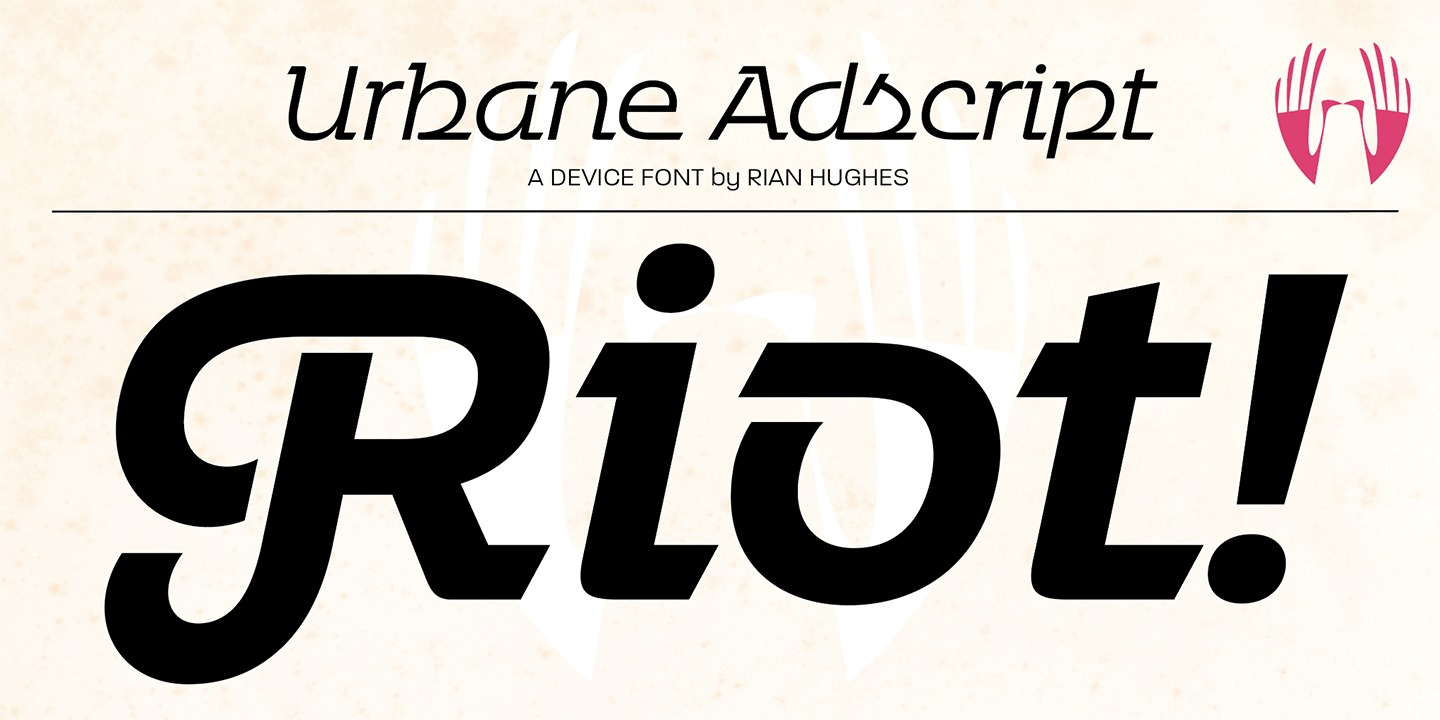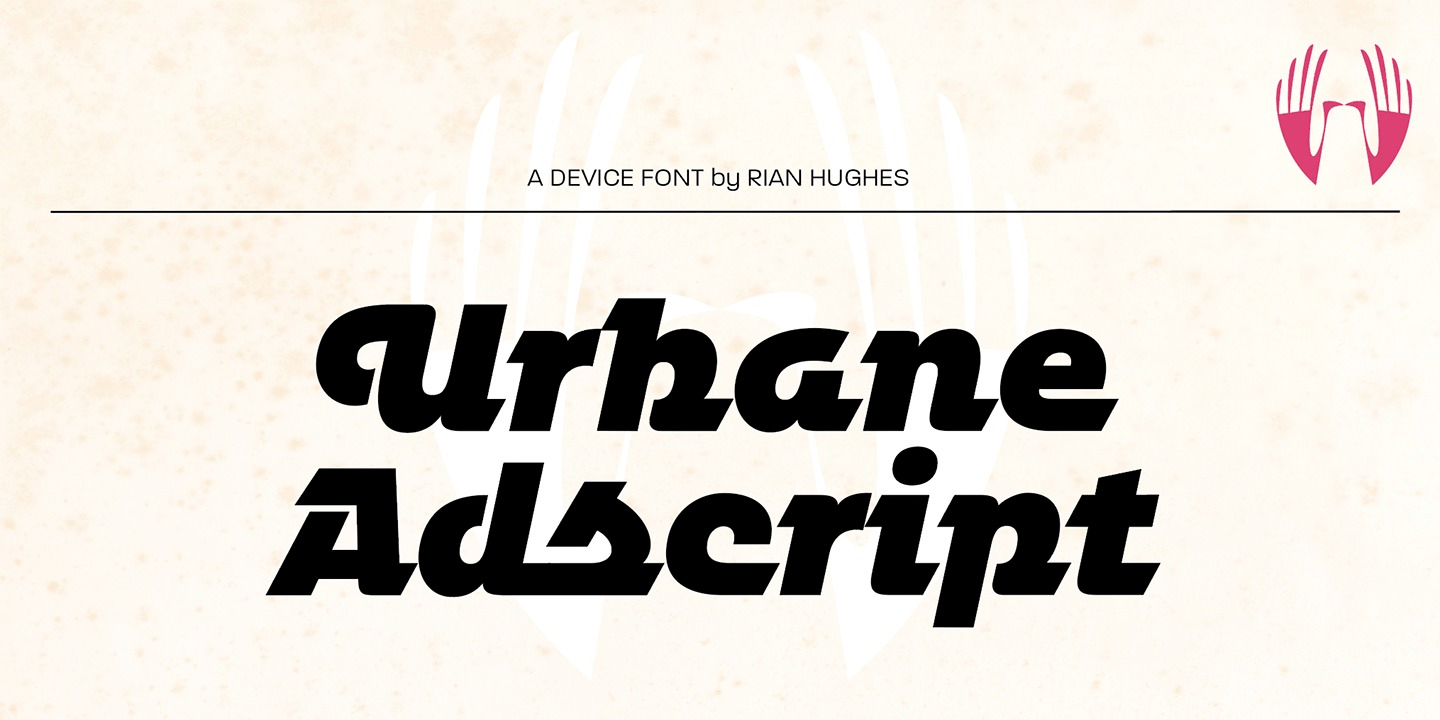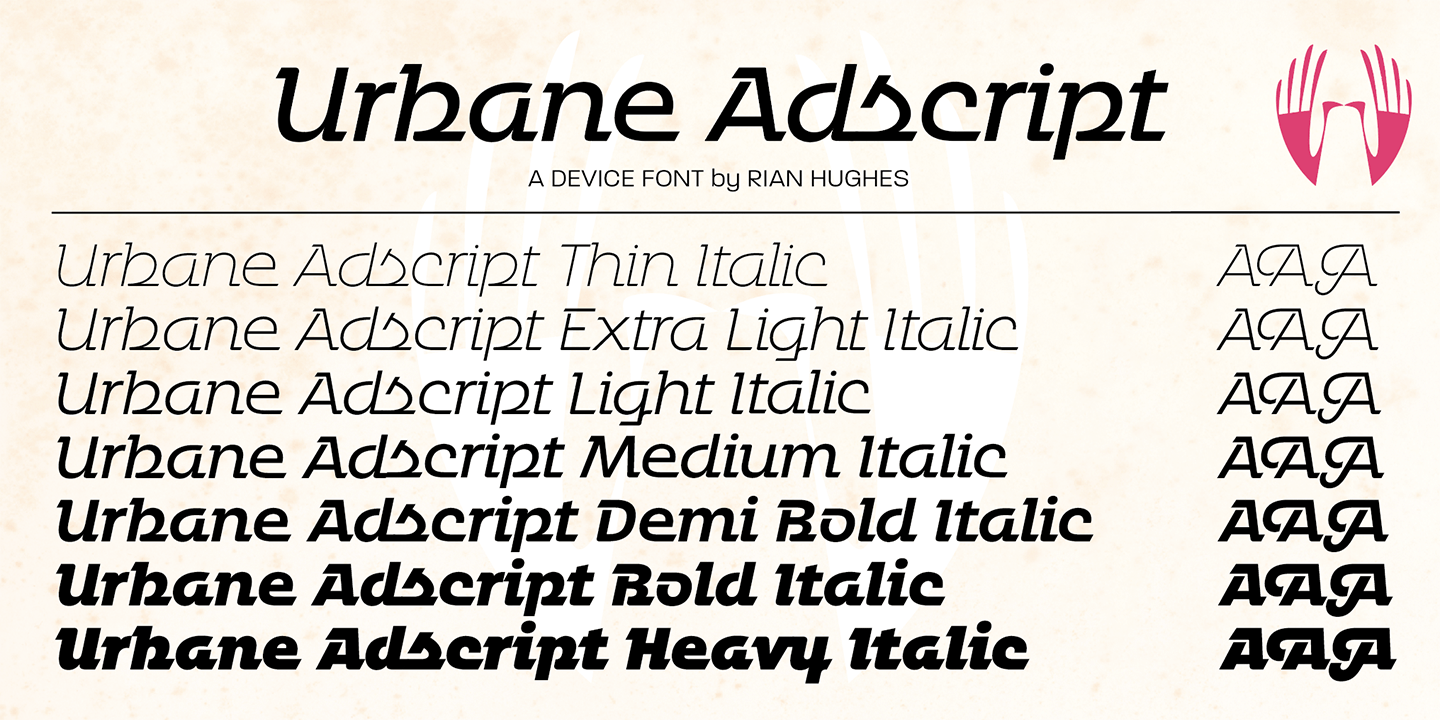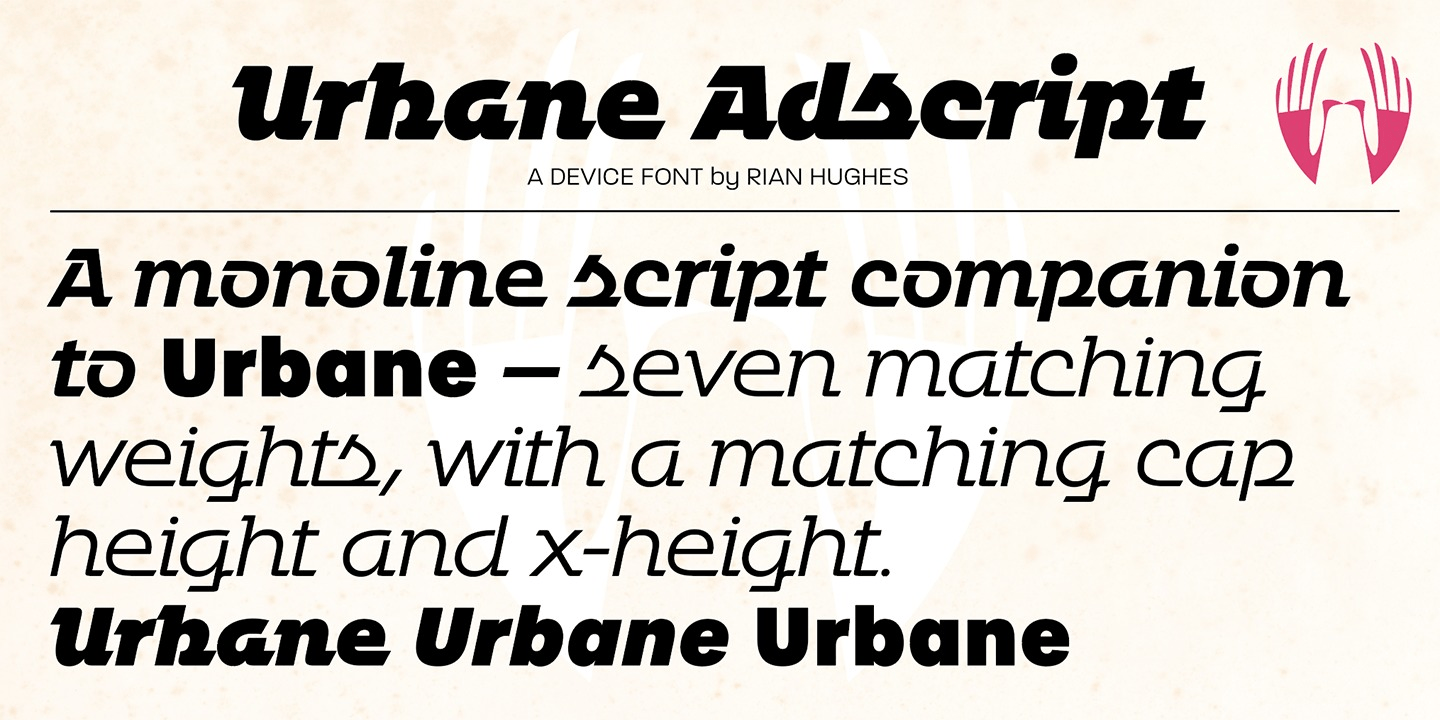
About Urbane Adscript
Urbane Adscript is a script companion to Urbane. A monoline semi-linking sans, it has the same number of weights and the same cap height and x-height as the Urbane family, meaning the two can be used together harmoniously. It features swash capitals…